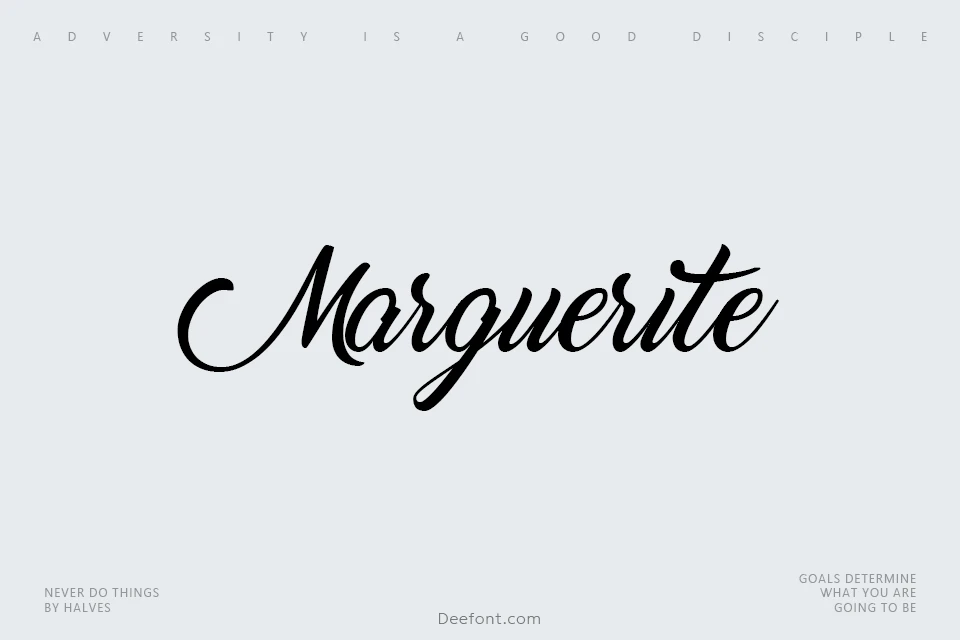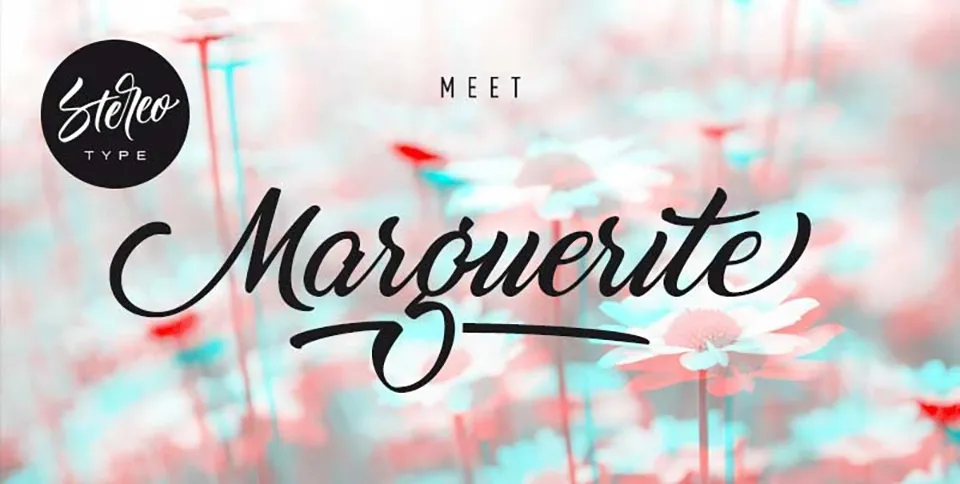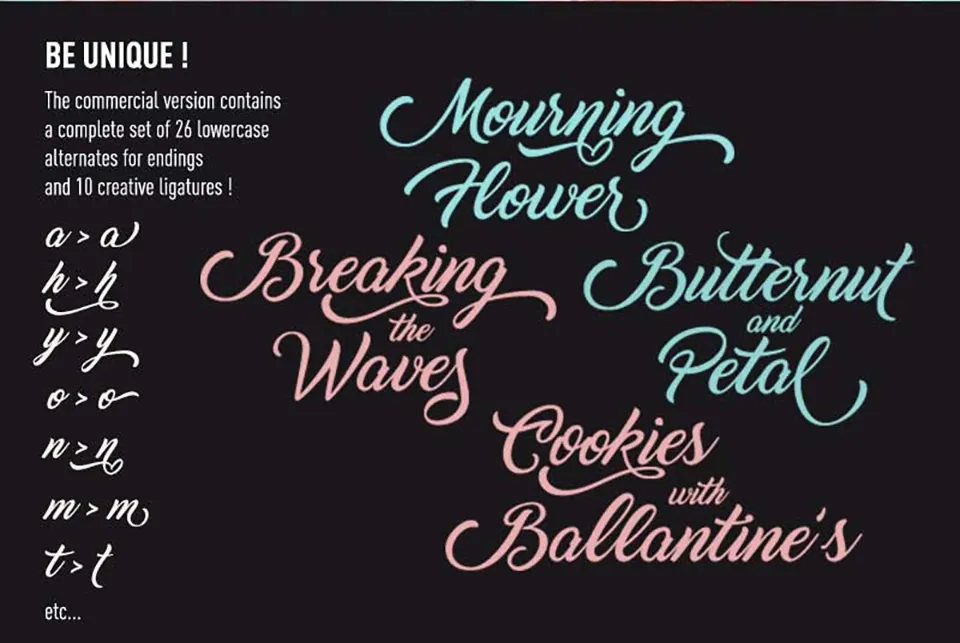
Marguerite Font
Marguerite Font is a soft and fresh script typeface designed by StereoType. With its elegant curves, natural connections, and hand-drawn calligraphy style, it brings a unique personality to any design. The commercial version includes a complete set of 26 lowercase alternates for endings and 10 creative ligatures, making it perfect for logos, headlines, invitations, and branding projects. Its versatility and stylish look make it a favorite for both personal and professional creative work.